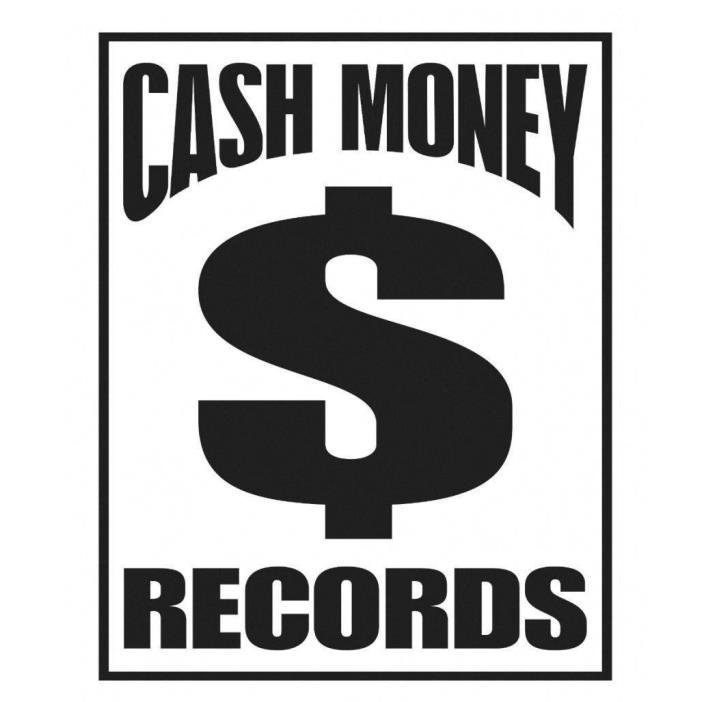
Cash Money Records Font Cash Money Records is founded by two brothers, Bryan “Birdman” Williams and Ronald “Slim” Williams. The logo of Cash Money record label has been designed based on Impact font. by Geoffrey Lee in 1965. This display sans serif typeface is very heavy and condensed in the grotesque style and quite similar to Helvetica Inserat.